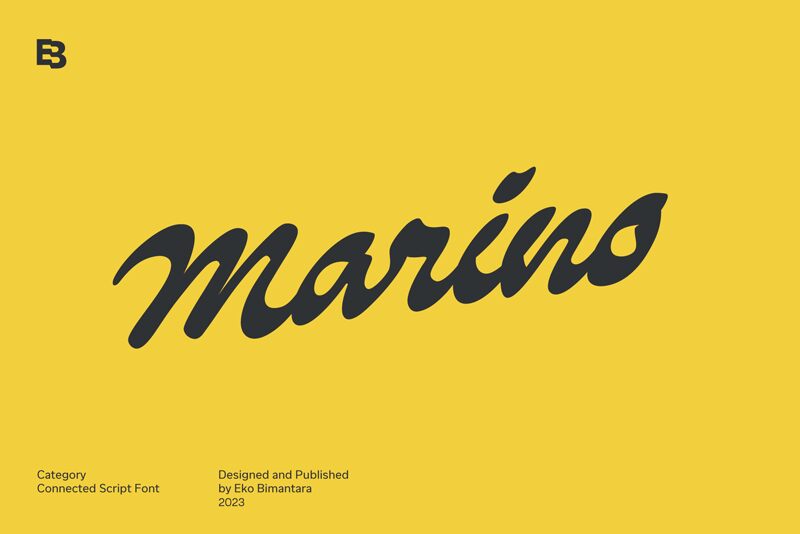
Marino is an awe-inspiring brush font that commands attention. The bold, dynamic strokes convey a sense of movement and energy, evoking the fluid, expressive quality of handwritten calligraphy. Designed by Eko Bimantara, this font exudes a captivating blend of sophistication and raw, unbridled creativity.
Marino's distinct character shines through in its dramatic, sweeping curves and the confident, almost flourished terminals. This font's versatility lends itself well to a wide range of applications, from eye-catching headlines and titles to impactful branding and packaging design. Its bold, artistic flair makes it an excellent choice for infusing a project with a touch of elegance and personality.